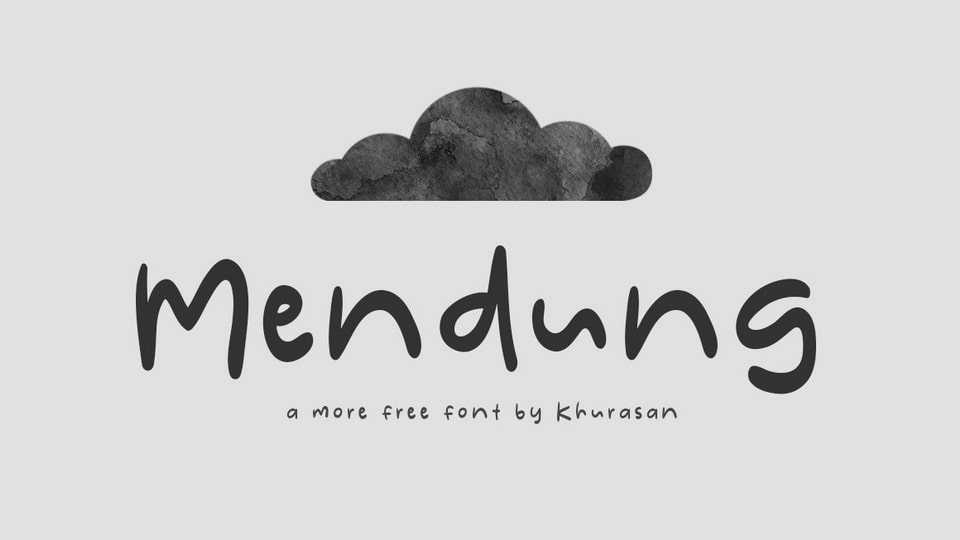
Download Mendung font, a simple and natural handwritten typeface. Mendung font is perfect for crafts, posters, logos, magazines, book covers, banners, and many more.